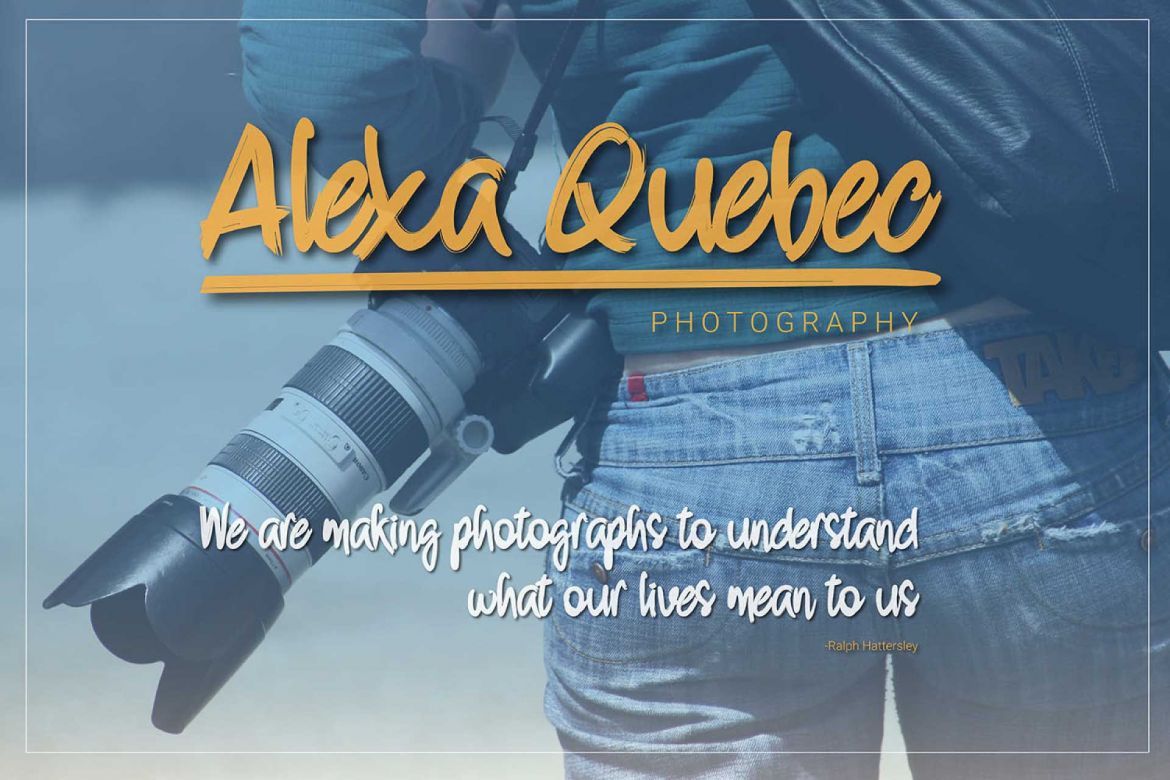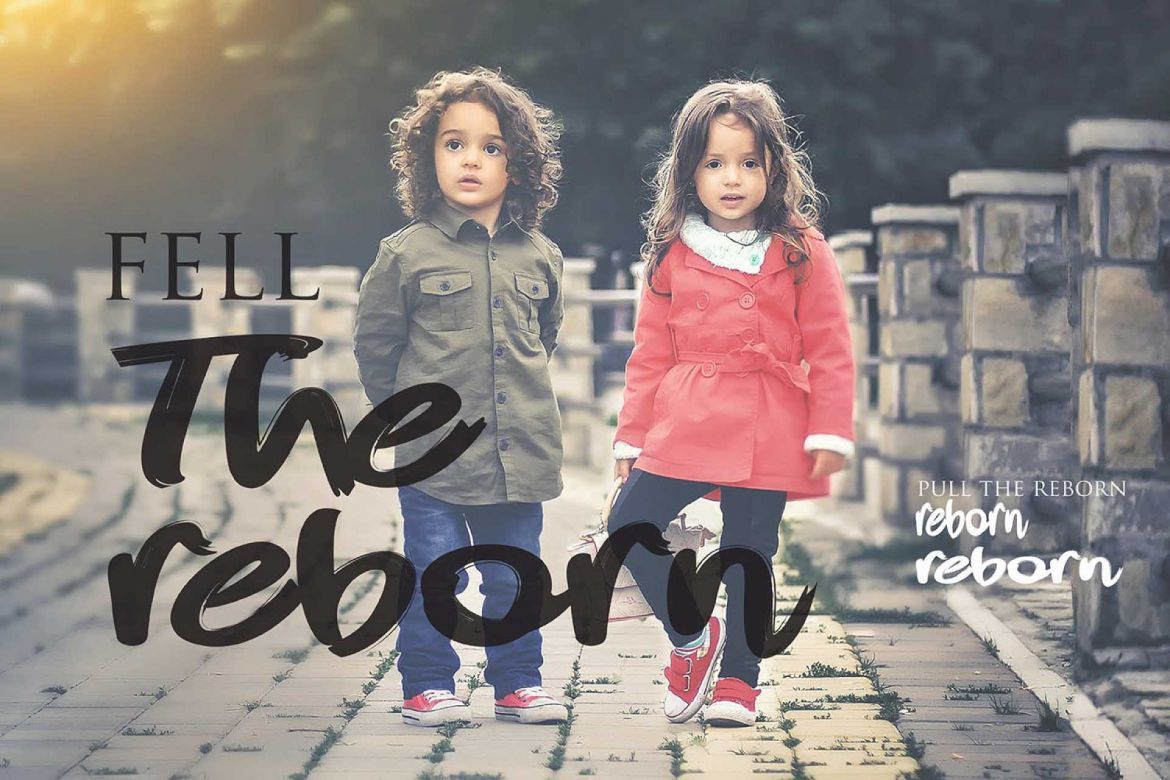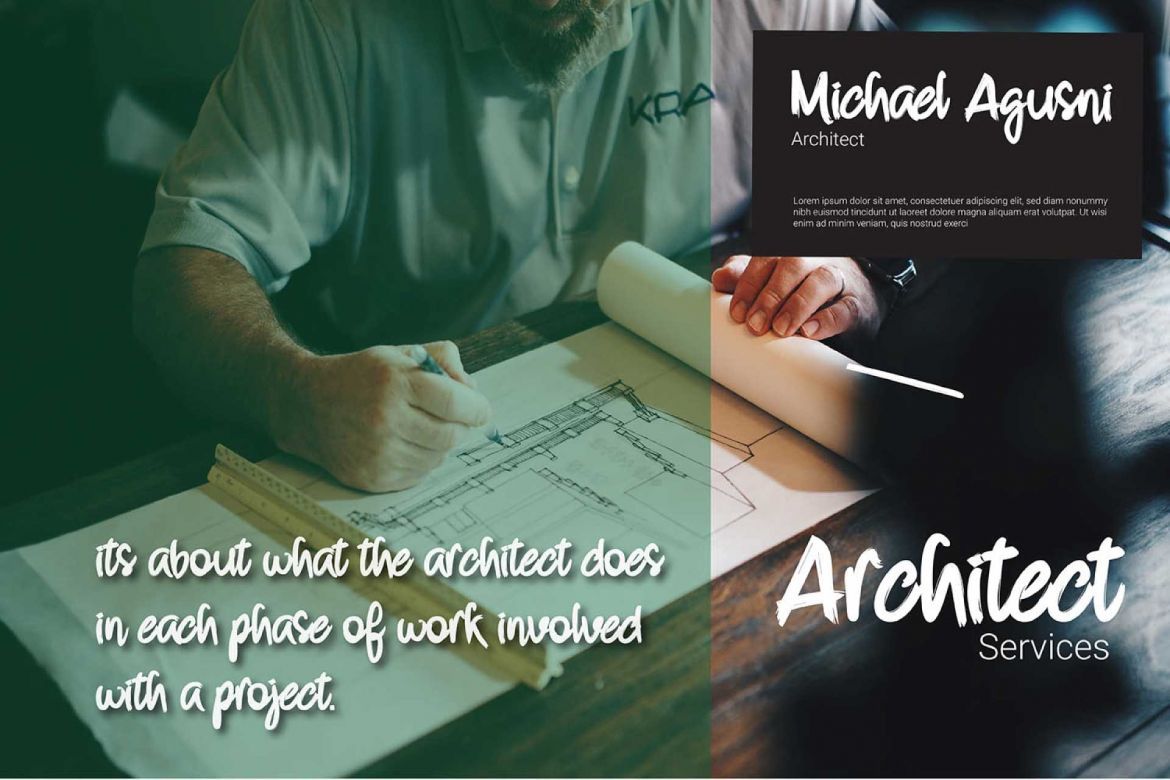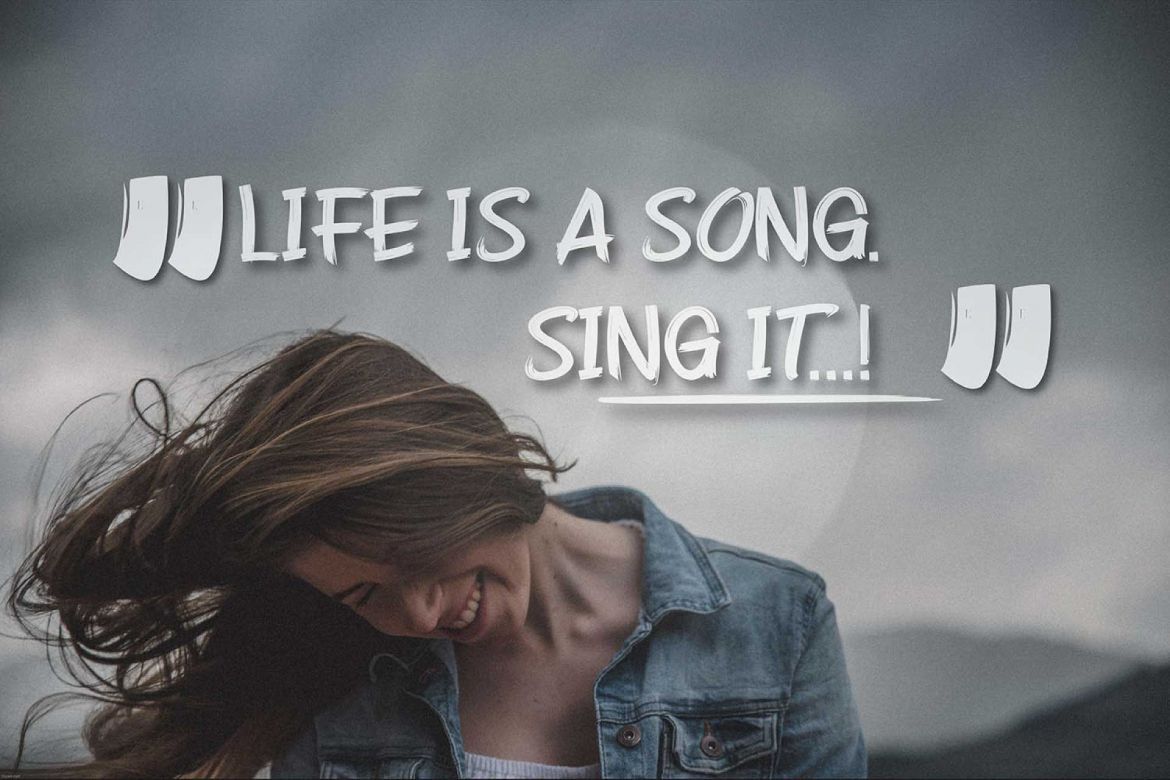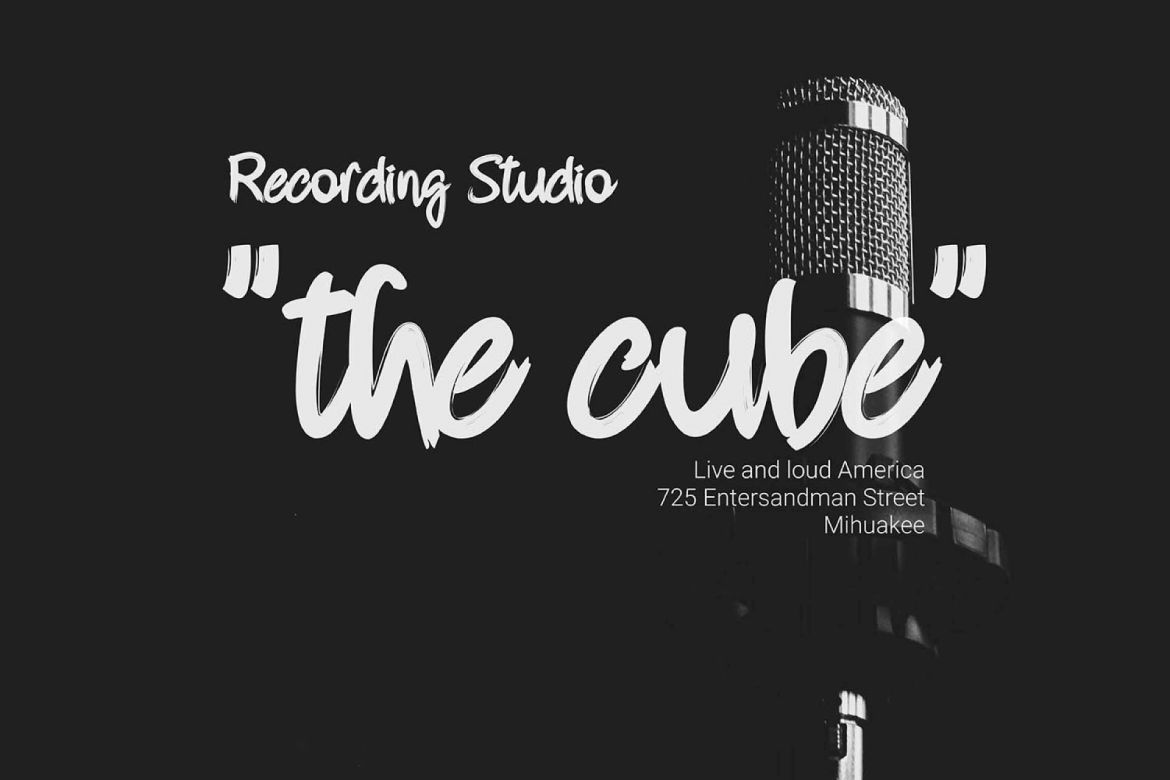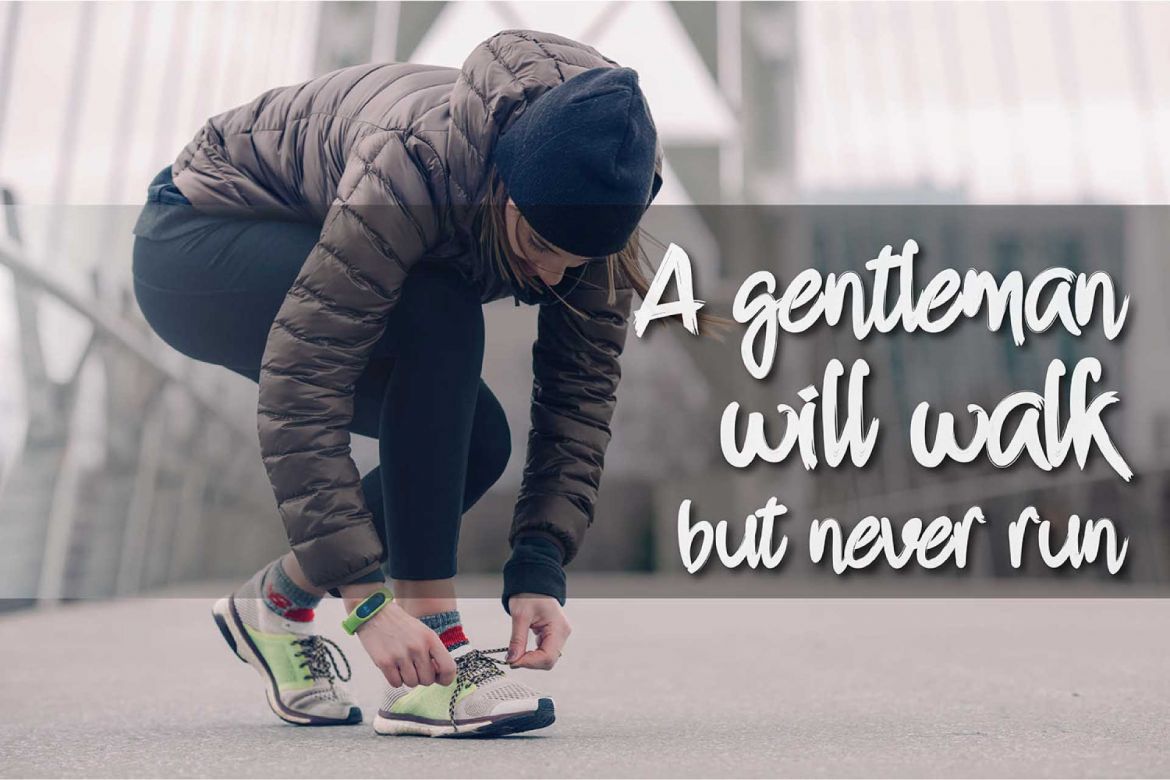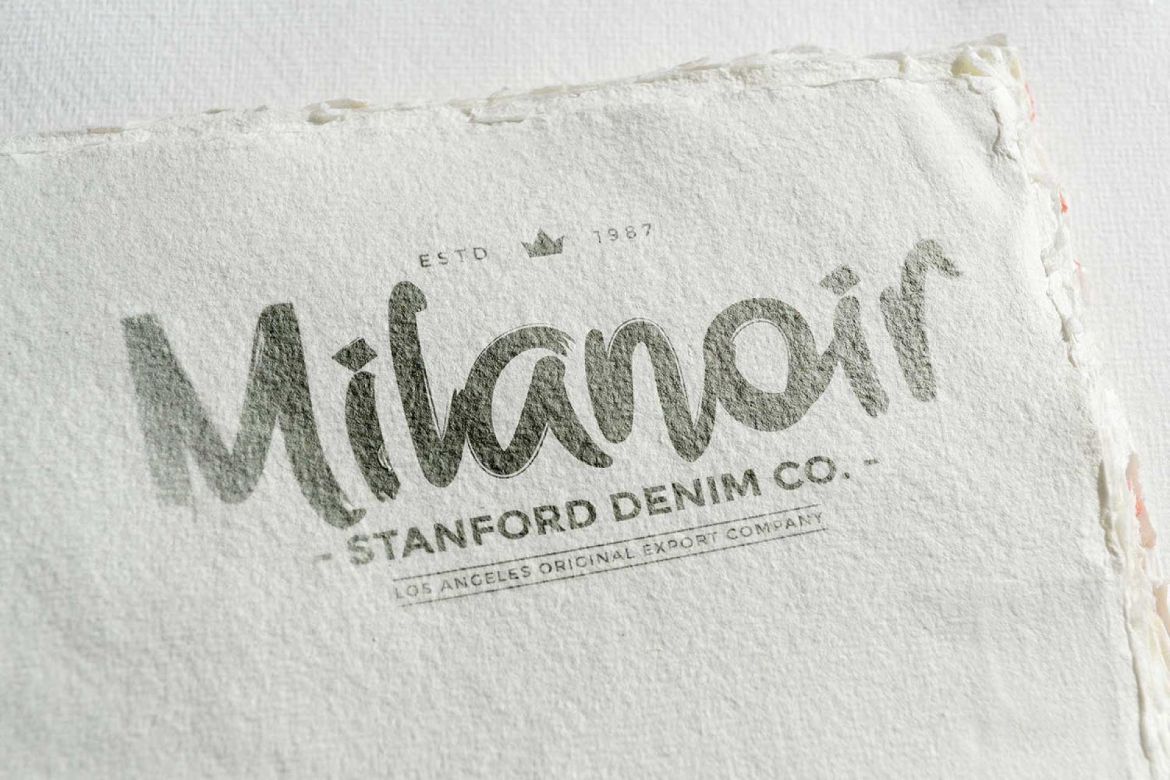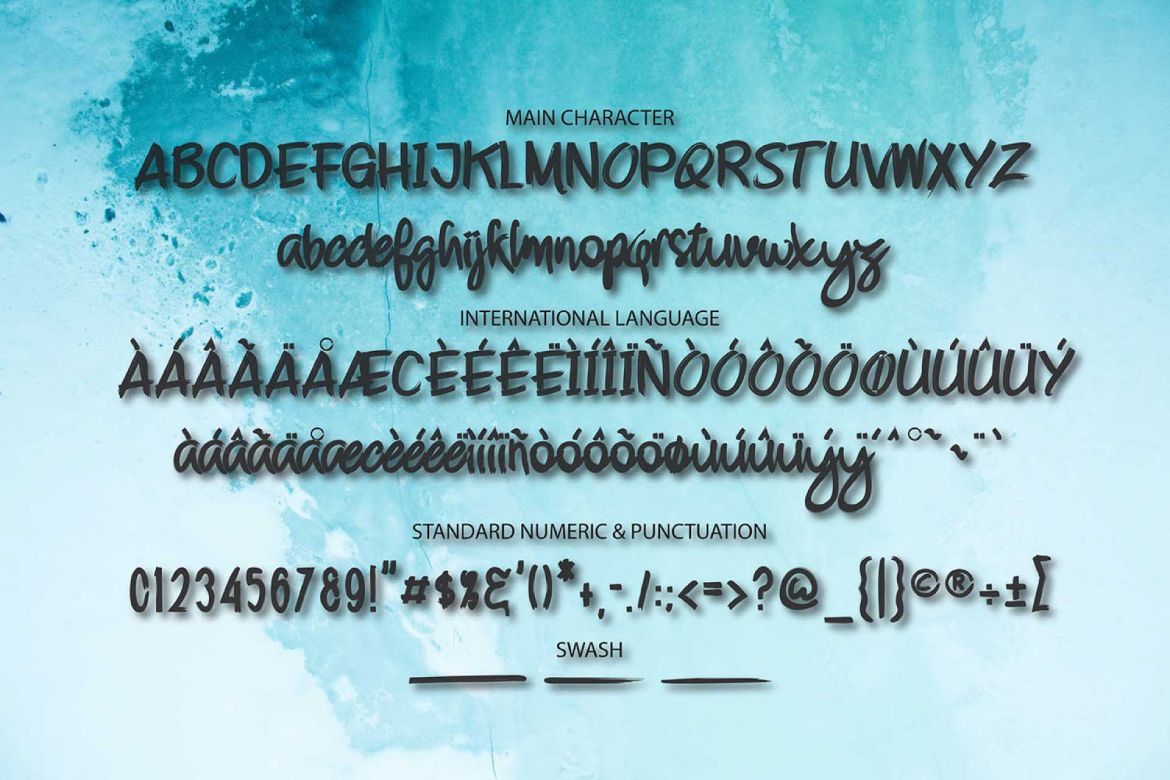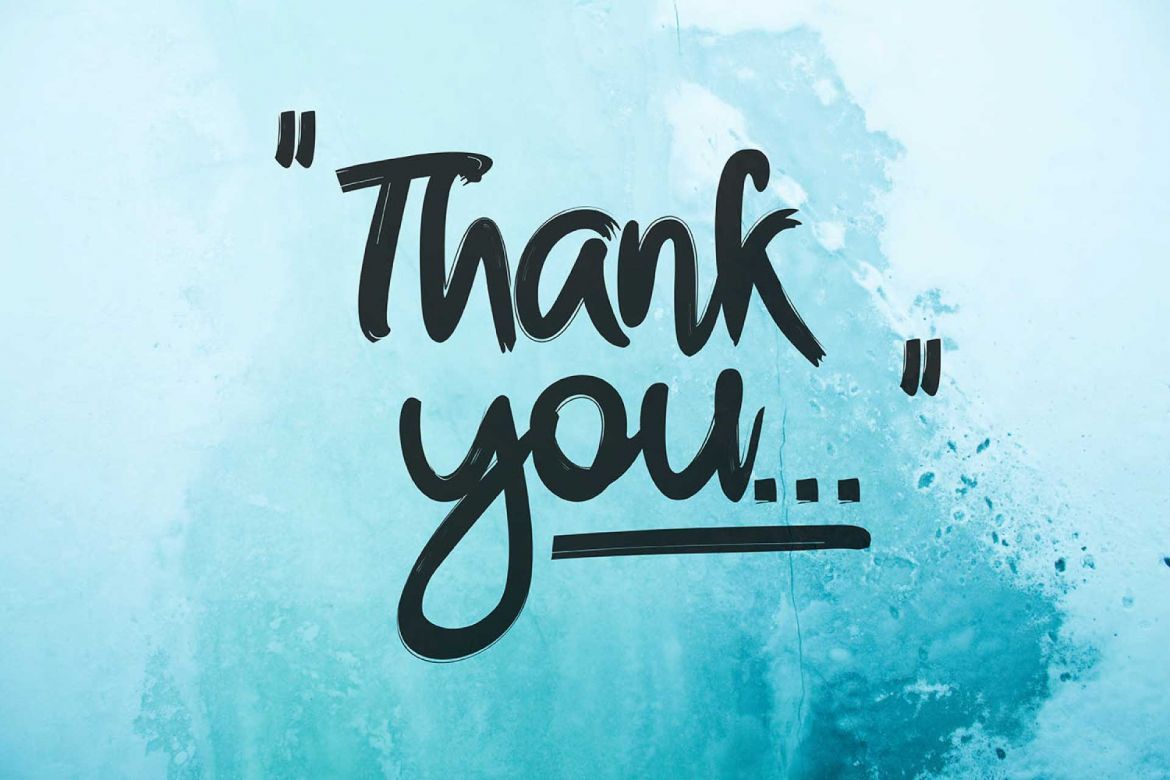
Strongbold Brush Font
Introducing: Strongbold! A casual dry brush stroke font, ideal for expressing fun and a relaxed vibe in your designs, his is a great option for giving your design a personal and natural touch. Its will looking nice for grunge brand, vintage and rustic style expression, dapper handwritten font with a personal charm.
Strongbold is perfect for branding projects, product packaging or simply as a stylish text overlay to any background image.
The strongbold glyph containing A-Z Uppercase, a-z Lowercase, numeric and punctuation, and multilingual support, please message me if you are ensured of any language support. That's it! I really hope you enjoy it- please do let me know what you think, comment and likes are always hugely welcomed and appreciated. More importantly, please don’t hesitate to drop me a message if you have any issues of queries.